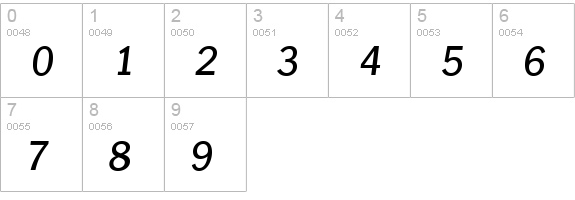
Plymouth-MediumIta is a sophisticated and elegant font that exudes a sense of modernity and style. Its sleek and clean lines make it perfect for a wide range of design projects, from branding to editorial design. The medium weight of this font strikes the perfect balance between being bold and refined, making it versatile for both headings and body text. One of the best things about Plymouth-MediumIta is that it is available for free download at FontsMarket.com. This means that you can easily access this beautiful font and use it in your projects without any cost. Whether you are a designer looking to add a touch of sophistication to your work or a business owner wanting to elevate your brand, Plymouth-MediumIta is a fantastic choice. Download it today and see how it can enhance your designs!